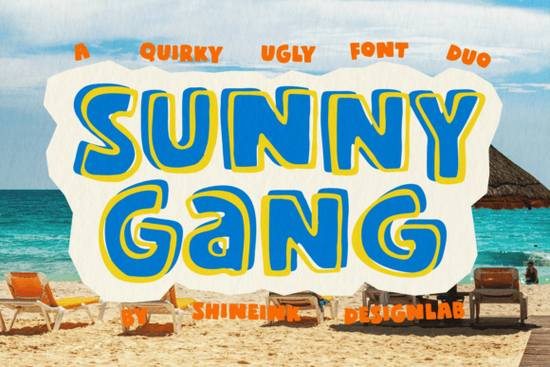
The Sunny Gang Font is a quirky, hand-drawn font duo designed to bring playful summer energy and retro beach vibes to your creative projects. It features chunky curves, bold imperfect shapes, and a fun attitude that works beautifully for branding, posters, social media graphics, kids' projects, and merchandise. If you're a designer, crafter, or print-on-demand seller looking for a display typeface that feels cheerful and full of personality, this one deserves your attention.
What Makes the Sunny Gang Font Stand Out?
Most playful fonts tend to fall into one of two camps: either they're too polished to feel truly fun, or they're so rough that they're hard to read. The Sunny Gang Font sits in a sweet spot between those extremes. Its hand-drawn style has just enough imperfection to feel genuine and energetic without sacrificing legibility.
The font comes in two styles: Regular and Outline, which gives you flexibility to mix and match within a single design. You could use the Regular style for your main headline and the Outline version for supporting text or decorative accents. That duo approach keeps things visually interesting without needing to pull in additional fonts.
- Uppercase and lowercase letters with alternate characters for both
- Numerals and punctuation marks
- Accented characters for multilingual support
The alternate alphabet characters are a nice bonus. They let you swap out certain letters to add variety, which is especially useful when you're repeating letters in a headline or logo and want to avoid a too-uniform look.
- Summer event posters and flyers the retro beach vibe is baked right into the design
- Kids' birthday party invitations it's playful without being babyish
- YouTube thumbnails and social media posts bold and eye-catching at small sizes
- Print-on-demand merchandise t-shirts, tote bags, and stickers
- Packaging design especially for food, beverage, or lifestyle brands with a fun personality
- Branding for small businesses particularly those targeting a youthful or casual audience
The real advantage of Sunny Gang compared to many alternatives is the font duo setup. Having Regular and Outline styles built in means you don't need to purchase separate fonts or manually create outlines in your design software. That saves both money and time.
- Use it at larger sizes. Display fonts are meant for headlines, titles, and short text. Avoid using it for body copy it'll be hard to read.
- Pair it with a clean sans-serif. A simple, neutral font balances the playfulness of Sunny Gang and keeps your layout grounded.
- Play with the alternates. Don't forget about the alternate uppercase and lowercase characters. Swapping a few letters here and there adds personality to your text.
- Try mixing Regular and Outline. Use one style for the main word and the other for supporting text to create visual hierarchy.
If you work on summer projects, kids' content, or fun branding regularly, the Sunny Gang Font is a solid addition to your font library. The duo style gives you more creative flexibility than most single-style display fonts, and the hand-drawn character keeps your designs from looking generic or template-like.